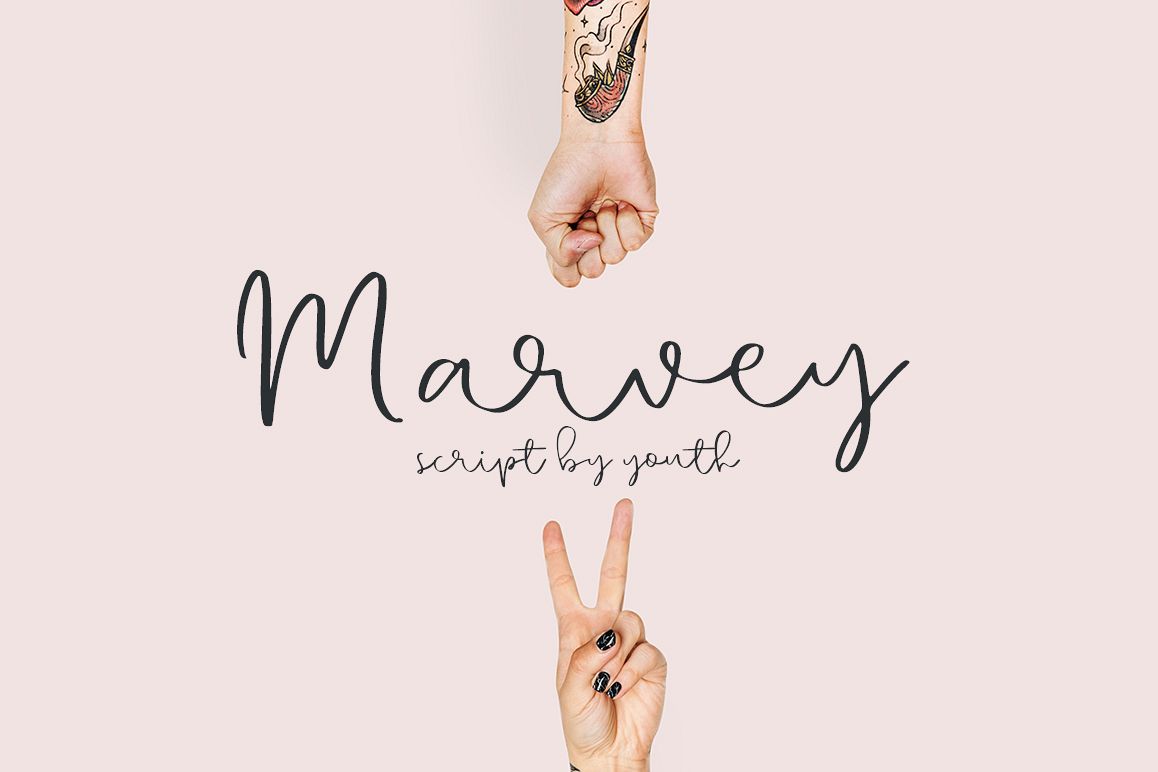
Marvey handwritten script
Marvey
Marvey includes full set of lovely uppercase and lowercase letters, multilingual symbols, numerals, punctuation and ligatures. This is so perfect for invitations, monograms etc
• Support ALL European Languages